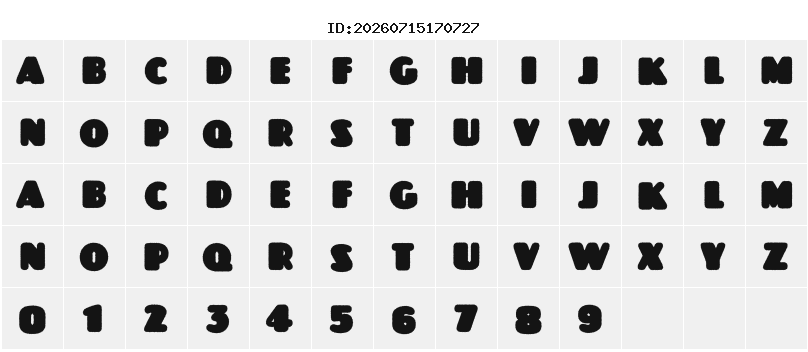
a_JasperTtlRndRgNord Preview
• Font Name: a_JasperTtlRndRgNord
• Font ID: a_JasperTtlRndRgNord
• Full Font Name: a_JasperTtlRndRgNord
• Version: Vers.01.02
• PostScript Name: a_JasperTtlRndRgNord
About a_JasperTtlRndRgNord.ttf
a_JasperTtlRndRgNord.ttf is a modern, elegant sans-serif font designed for ultimate readability and visual harmony. Perfect for branding, headlines, web design, and print materials.